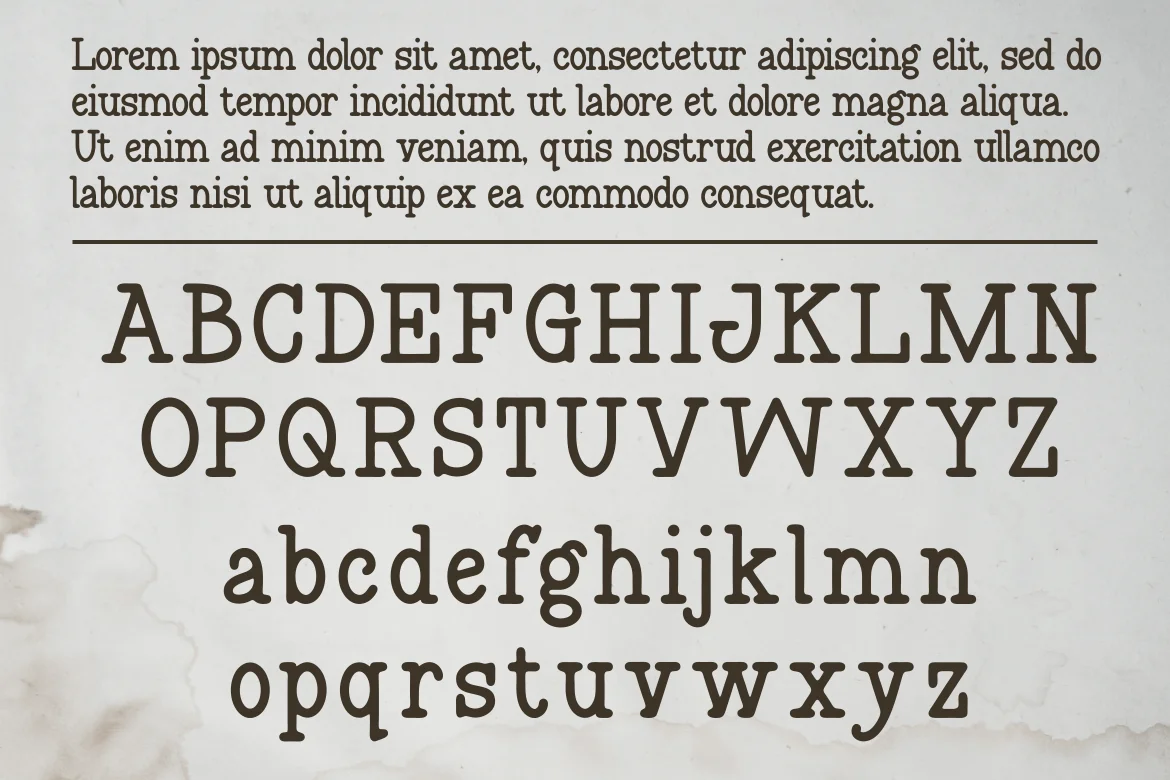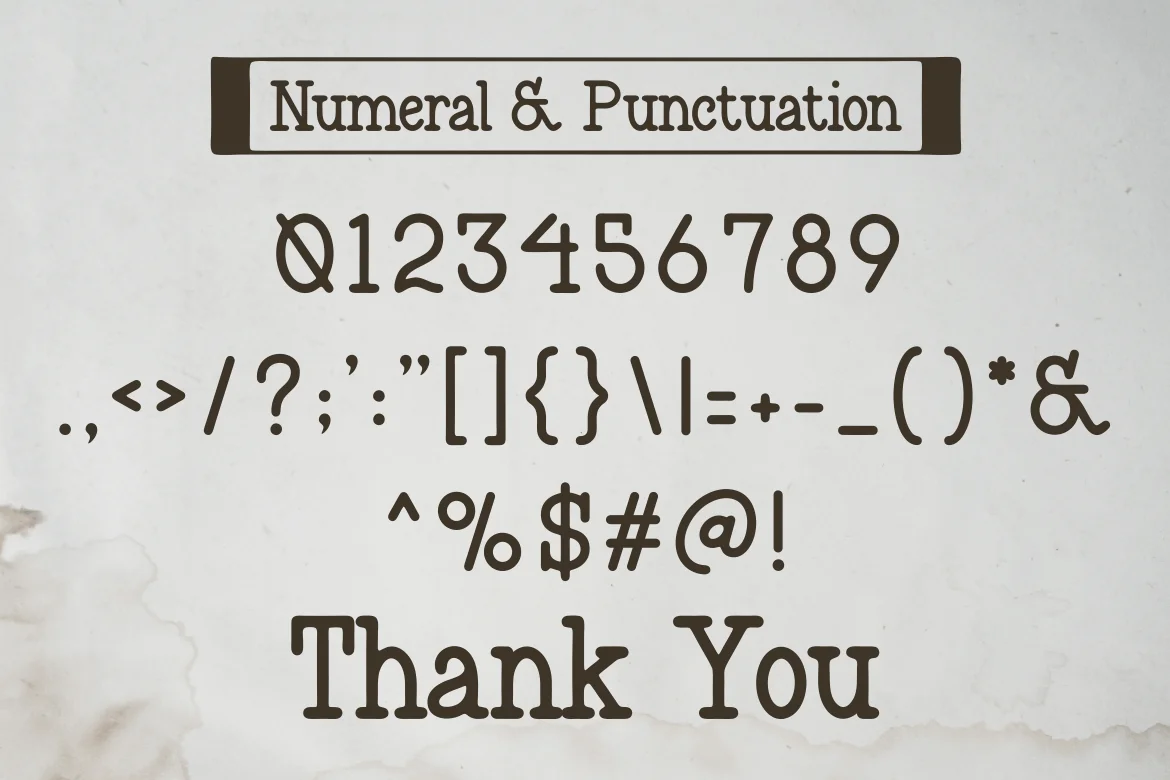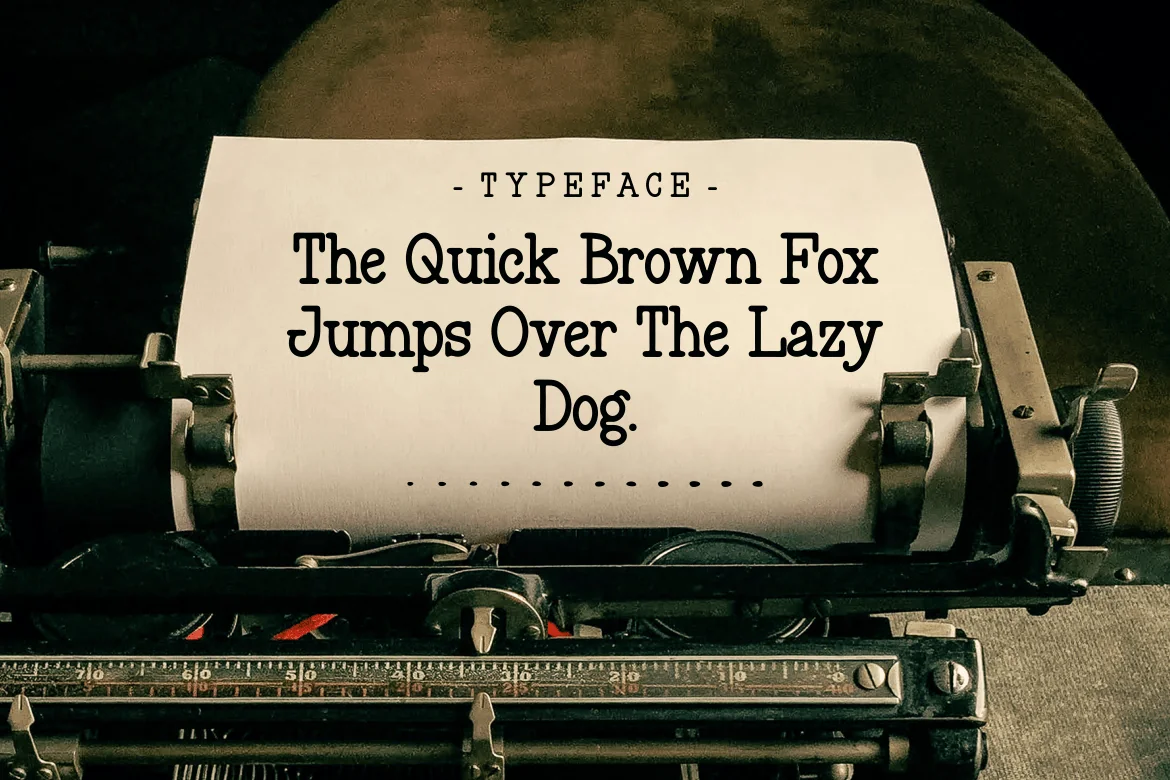
Duckies – A Typewriter Font
Introducing our new product Duckies Font – Modern Font
Duckies Font** – Modern Font is a bold and authentic display font. The font is suitable for any branding project like logo, t-shirt printing, Product and many more. outstanding in a wide range of contexts.